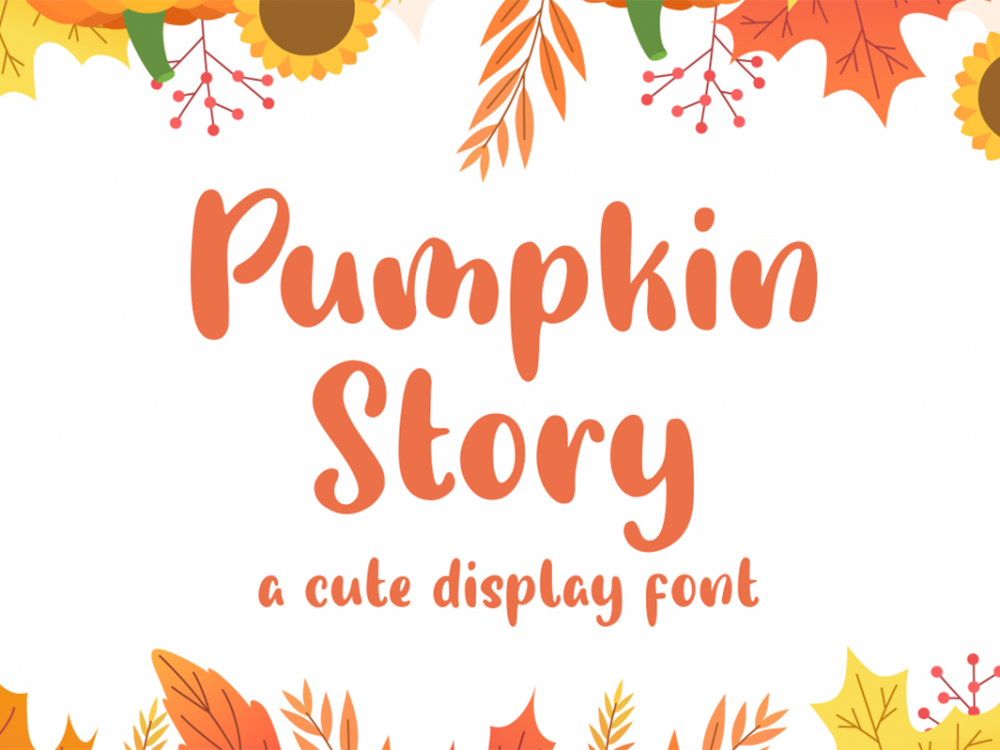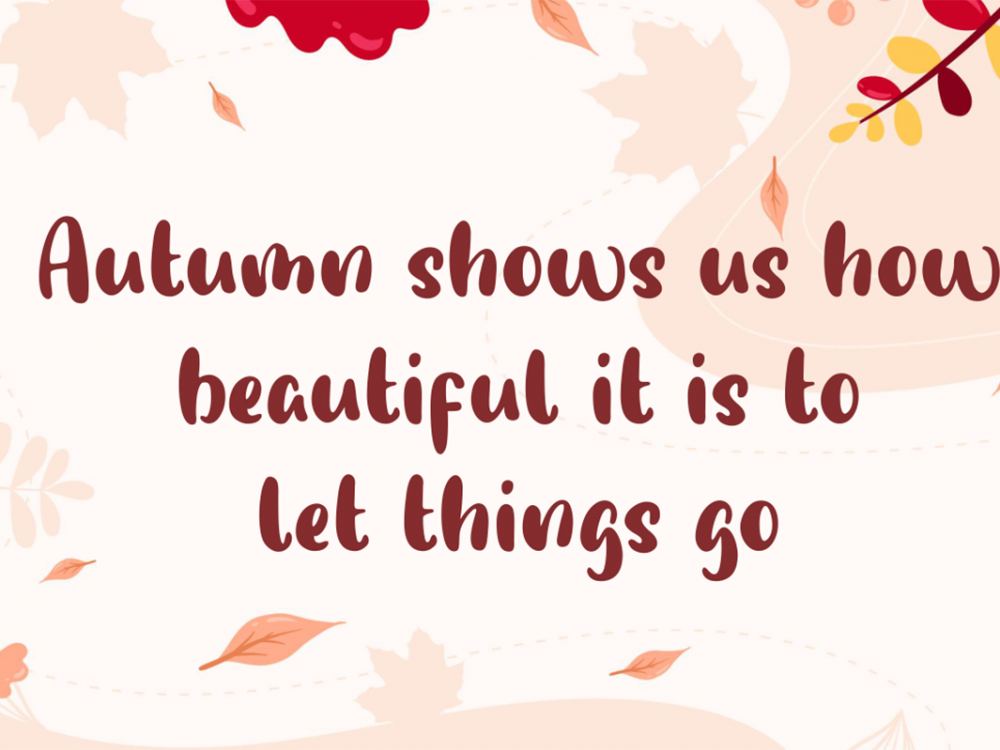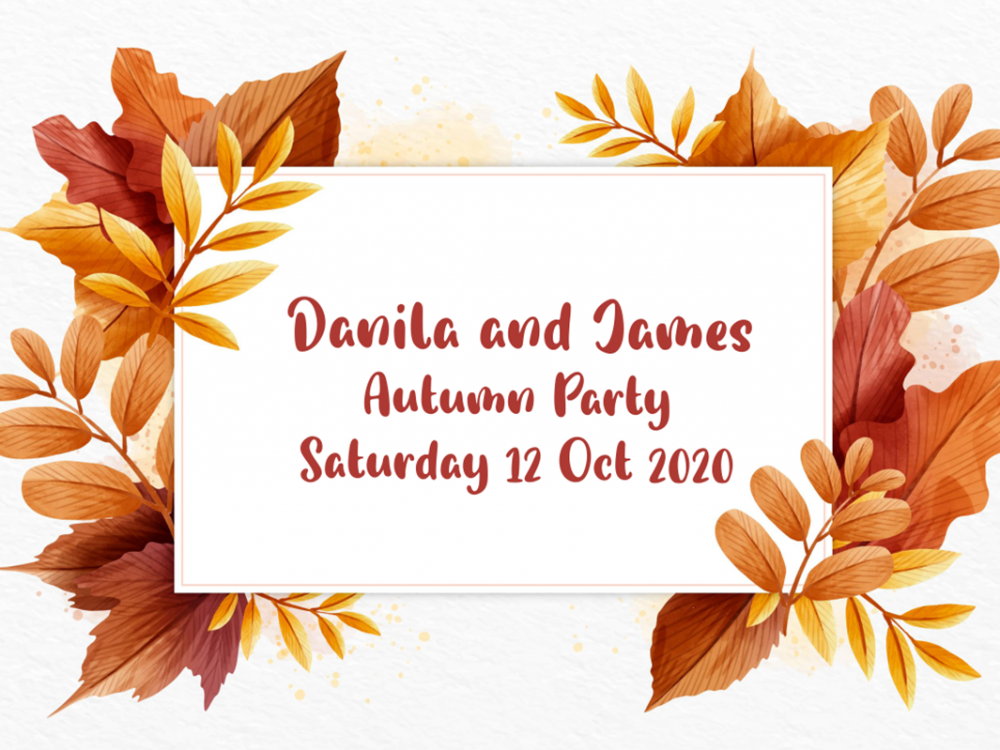
Pumpkin Story Free Font
Pumpkin Story Free Font is a scriptable, cute handwritten font that simulates writing with a brush and is well suited for creating various design projects in a modern style and for children. You can use this font to create memorable posters, wedding invitations, cards, branding, flyers, and more. Improve the quality and increase the popularity of your design projects by using this font. If you like it don’t forget to check out the full version.